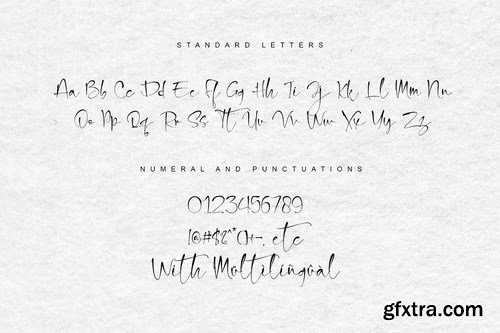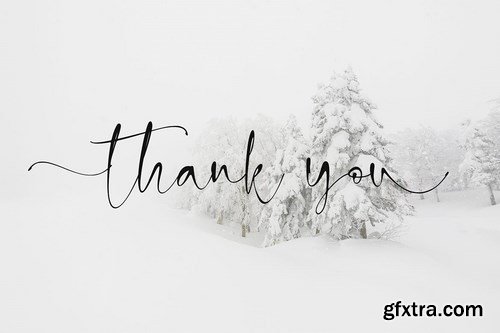
snowland is the perfect handwritten font: Elegant, Sweet, innocent, light, and charming, this one-of-a-kind typeface will add a unique charm to any design project! snowland font was created to look as close to a natural handwritten script as possible by including 33 ligatures. With built-in Opentype features, this script comes to life as if you are writing it yourself. You can see it in the picture shown. This font is PUA encoded which means you can access all of the glyphs and swashes with ease! It features a varying baseline, gorgeous glyphs, and stunning alternates.